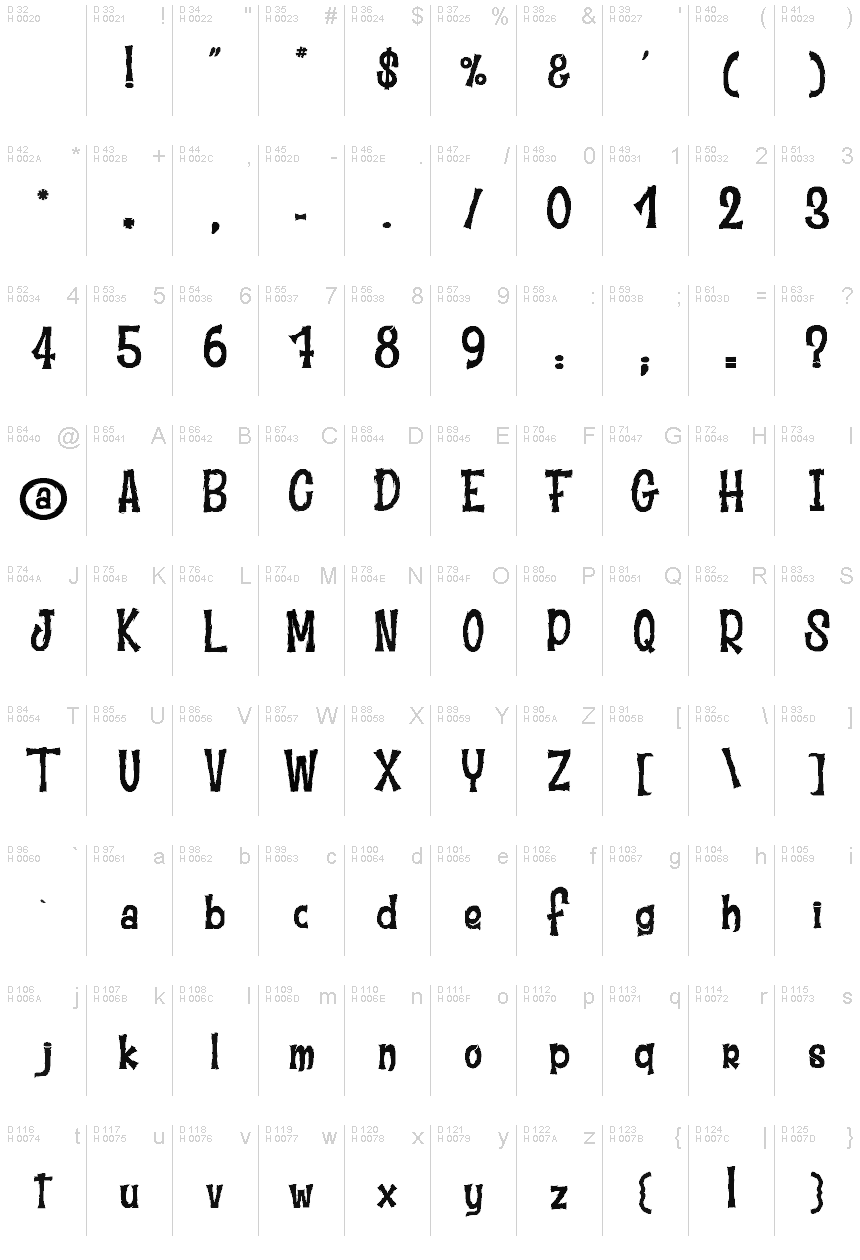
Moustache Club
Moustache Club, a bold and whimsical display font designed by Medina Gregory, exudes a captivating, cartoon-inspired aesthetic. Its condensed width and distinctive, hand-drawn letterforms create an engaging, playful visual experience.
The font's striking, heavily stylized characters and exaggerated ascenders and descenders lend it a delightfully quirky charm. Its versatile nature allows it to seamlessly transition between various design applications, from eye-catching headlines to impactful branding.
Moustache Club's unique flair makes it an excellent choice for projects seeking to convey a sense of fun, personality, and creativity, such as children's illustrations, event posters, or retro-inspired designs.